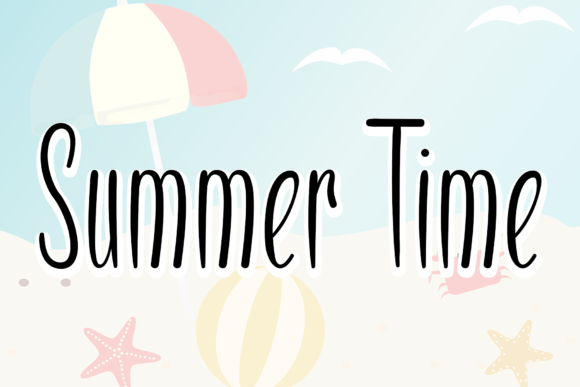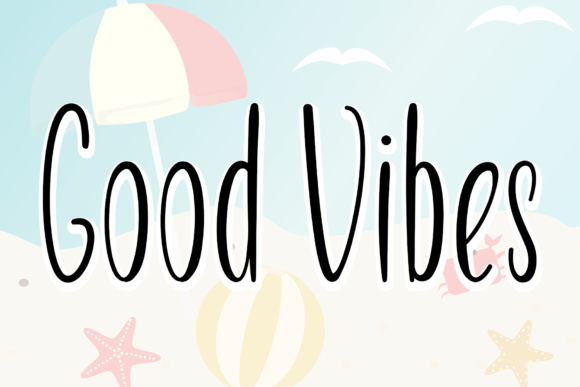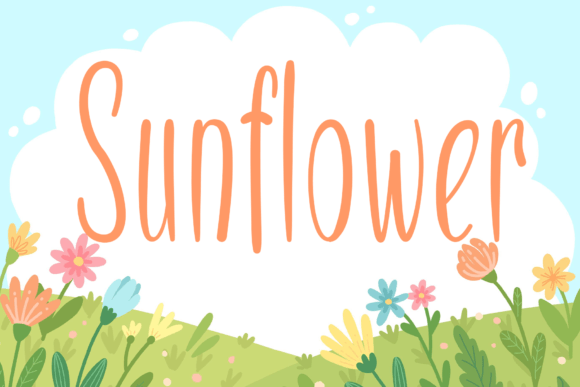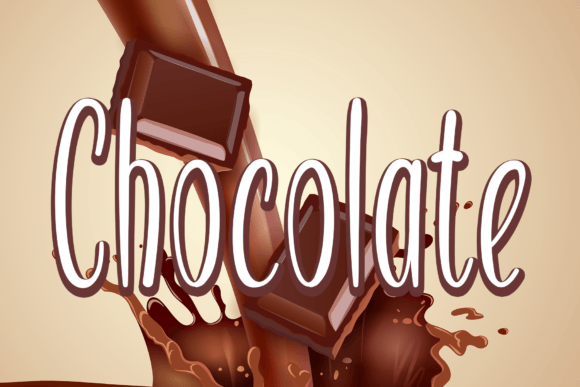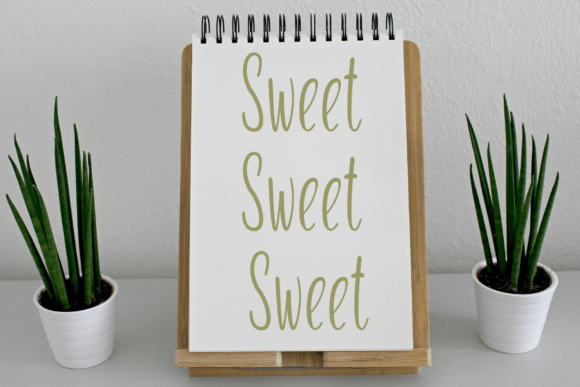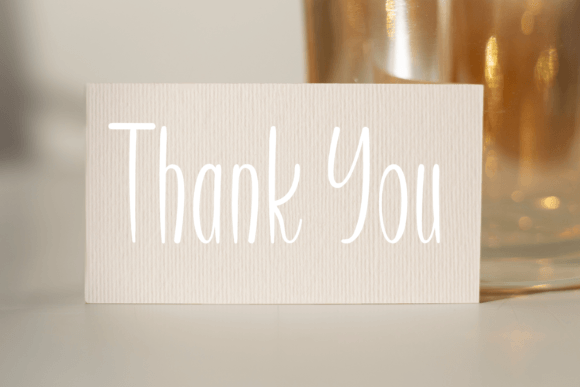
The Perfect Font for the Most Wonderful Time of the Year
It’s that time of the year when we break out the glitter, the garlands, and our favorite holiday decorations. As a designer, I always find myself searching for the perfect font to capture the festive spirit of the season. And that’s when I stumbled upon the Holiday Font – a simple, yet charming handwritten font that has quickly become my go-to choice for all things holiday.
With its friendly and approachable feel, the Holiday Font is perfect for adding a personal touch to your holiday crafts, digital designs, presentations, and even greeting cards. Whether you’re a seasoned designer or a crafty enthusiast, this font is sure to bring a smile to your face and make your projects shine. As a valuable addition to any designer’s toolkit, the Holiday Font is a must-have for anyone looking to add a little holiday magic to their work.
Holiday Font Key Features
- Font Family: Holiday Font is a unique, hand-drawn font designed to evoke a festive and cheerful atmosphere.
- Character Count: The font family includes over 200 characters, including uppercase and lowercase letters, numbers, and punctuation marks.
- Unique Characteristics: Holiday Font features a distinctive, hand-drawn style with irregular shapes and ornaments, adding a touch of whimsy and personality to any design.
Holiday Font Review
I recently had the chance to work with the Holiday Font, and I must say, it’s a unique blend of festive and elegant elements. ✨
Here are some of its strengths:
- It’s perfect for the holiday season, especially for Christmas and New Year’s Eve designs.
- The font has a great balance of playfulness and sophistication.
- The variety of font styles and weights makes it versatile for different design applications.
- The font may not be as readable in smaller sizes or in complex layouts.
- The design may not be suitable for non-holiday projects, as it’s quite seasonal.
- The font family could benefit from additional languages and character sets for global designs.
Overall, the Holiday Font is a great choice for designers who need a festive and eye-catching font for their holiday projects. While it has some limitations, its unique blend of style and elegance makes it a standout in the design world.
Tips for Getting the Most Out of Holiday Font
Use the Holiday Font to add a festive touch to your designs, such as in holiday greeting cards, party invitations, and social media graphics.
Experiment with different font sizes, colors, and styling options to create a unique and eye-catching look.
Combine the Holiday Font with other design elements, such as images and graphics, to create a cohesive and engaging design.
Christmas and New Year’s Eve invitations and cards
Holiday-themed social media graphics and posts
Party and event invitations and decorations
Gift tags and labels
Holiday-themed website and blog designs
Alternatives to Holiday Font
Playfair Display is a luxurious and elegant serif font ideal for creating a sense of sophistication and refinement. It’s perfect for use in invitations, wedding stationery, and high-end branding.
Compared to Holiday Font, Playfair Display has a more refined and classic feel, making it suitable for formal and upscale designs.